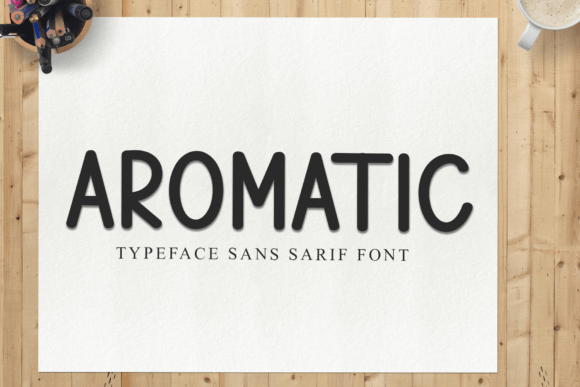
Unlock the Scent of Creativity with Aromatic Font
Have you ever sat in front of a blank page, feeling the urge to create something beautiful and captivating? The spark of inspiration is a magical moment that every designer knows and loves. For those who have been there, you’ll understand the excitement of bringing a vision to life. As you begin to sketch out your idea, you start to envision the perfect font – one that will elevate your design and leave a lasting impression.
Aromatic Font is a stunning typeface that embodies the essence of natural elegance. Its smooth touch and beautiful strokes create a unique and inviting feel, making it perfect for various design projects. Whether you’re crafting banners, YouTube thumbnails, or logo designs, this versatile font is sure to add a touch of sophistication to your work.
Aromatic Font Key Features
- Character Count: The font contains 250+ characters, including uppercase and lowercase letters, numerals, and special symbols, providing a comprehensive set of glyphs for effective communication.
- Unique Characteristics: Aromatic Font features a unique blend of modern and elegant styles, with subtle nuances that evoke a sense of sophistication and refinement. The font’s distinctive curves and lines create a visually appealing effect, making it perfect for high-end branding and design projects.
- Font Weight and Style: Aromatic Font comes in 5 weights (Light, Regular, Medium, Bold, and Black), offering versatility and flexibility in designing various text styles, from subtle to dramatic.
Aromatic Font Review
As a designer, I was excited to dive into the Aromatic Font and see what it had to offer. Here’s my honest take on this font.
- Clean and Elegant Design: The Aromatic Font has a beautiful, clean design that makes it perfect for various projects.
- Good Legibility: The font is easy to read, even at smaller font sizes, which is great for digital projects.
- Unique Feel: The font has a unique feel to it, which can add a touch of sophistication to any design.
- Limited Character Set: The font is a bit limited in terms of the character set, which may not be ideal for projects that require a lot of special characters.
- Not Ideal for Headlines: While the font is great for body text, it may not be the best choice for headlines, as it can get a bit lost in the noise.
Overall, I think the Aromatic Font is a solid choice for designers who want a clean and elegant font for their projects. While it may have some limitations, it’s definitely worth considering for the right projects.
Aromatic Font is ideal for creative projects, such as:
- Artistic and design-focused documents
Alternatives to Aromatic Font for Designers
Playfair Display is a luxurious, elegant font suitable for high-end branding, invitations, and wedding designs. Its classic feel and intricate details make it perfect for creating a sophisticated atmosphere.
Compared to Aromatic Font, Playfair Display has a more refined and classic feel, while Aromatic Font has a more modern and elegant touch.
Great Vibes is a beautiful, handwritten font ideal for creating a relaxed and casual atmosphere. It’s perfect for designs that require a friendly and approachable tone, such as food blogs, travel websites, or social media posts.
Unlike Aromatic Font, Great Vibes has a more informal and casual feel, making it suitable for everyday use rather than formal branding.
Carolyna Pro is a modern, elegant font that combines sophistication and playfulness. It’s suitable for a wide range of designs, from fashion and beauty branding to lifestyle and wellness websites.